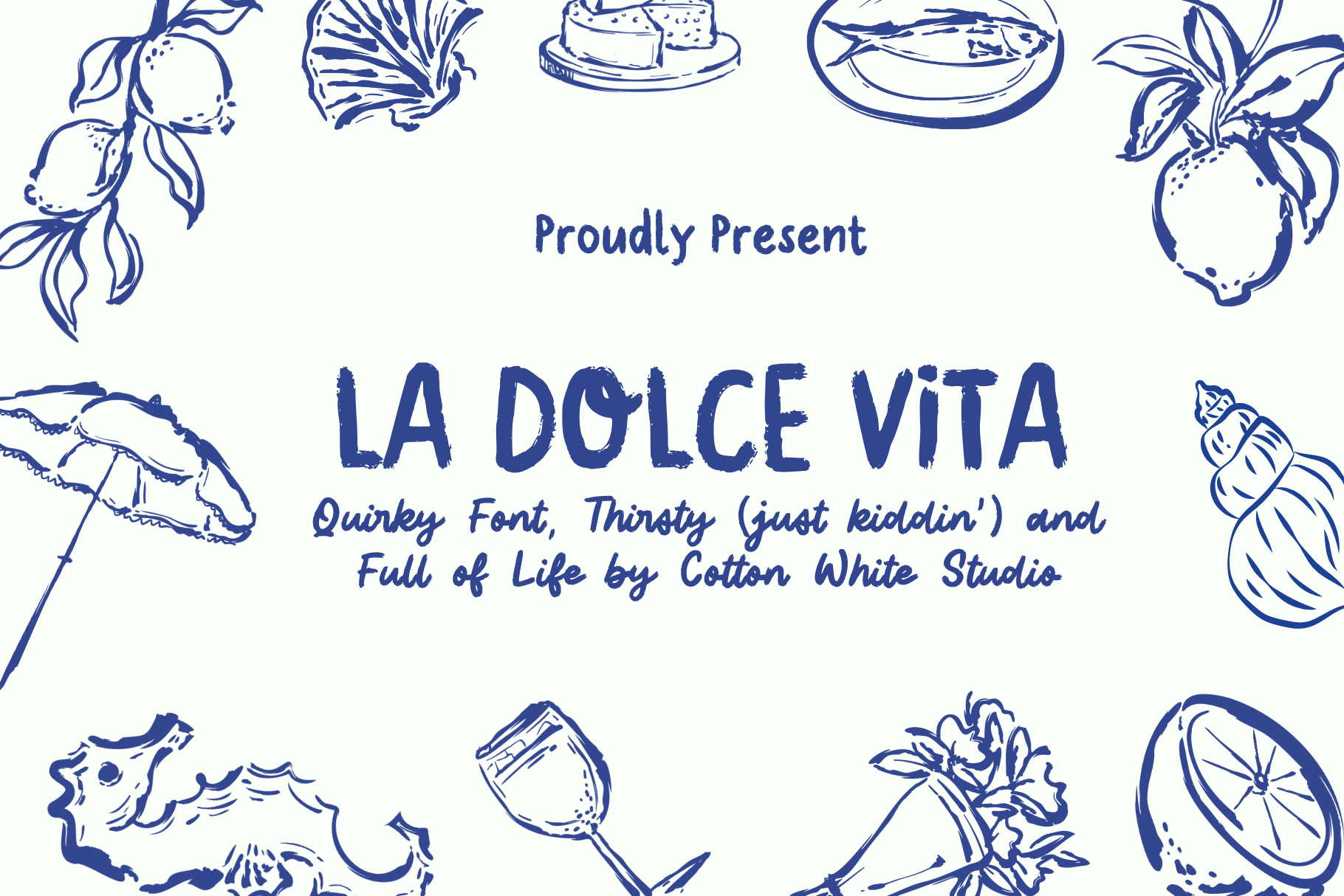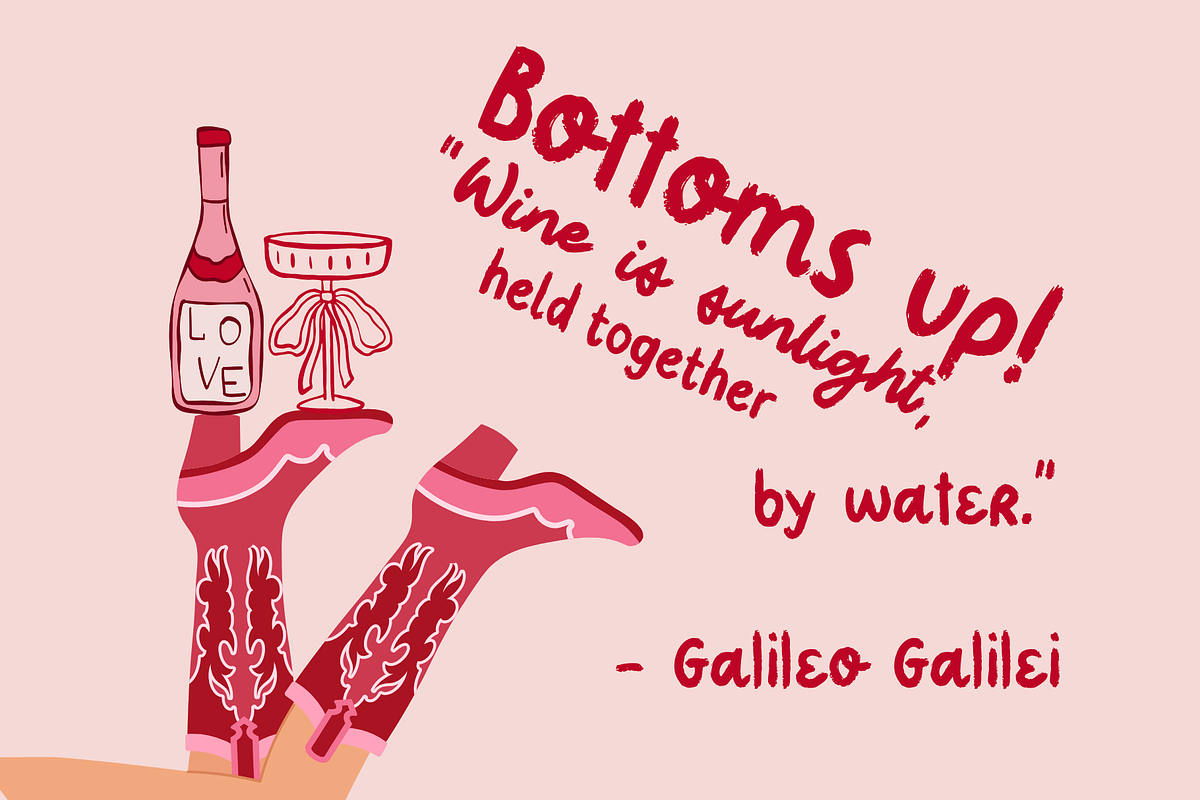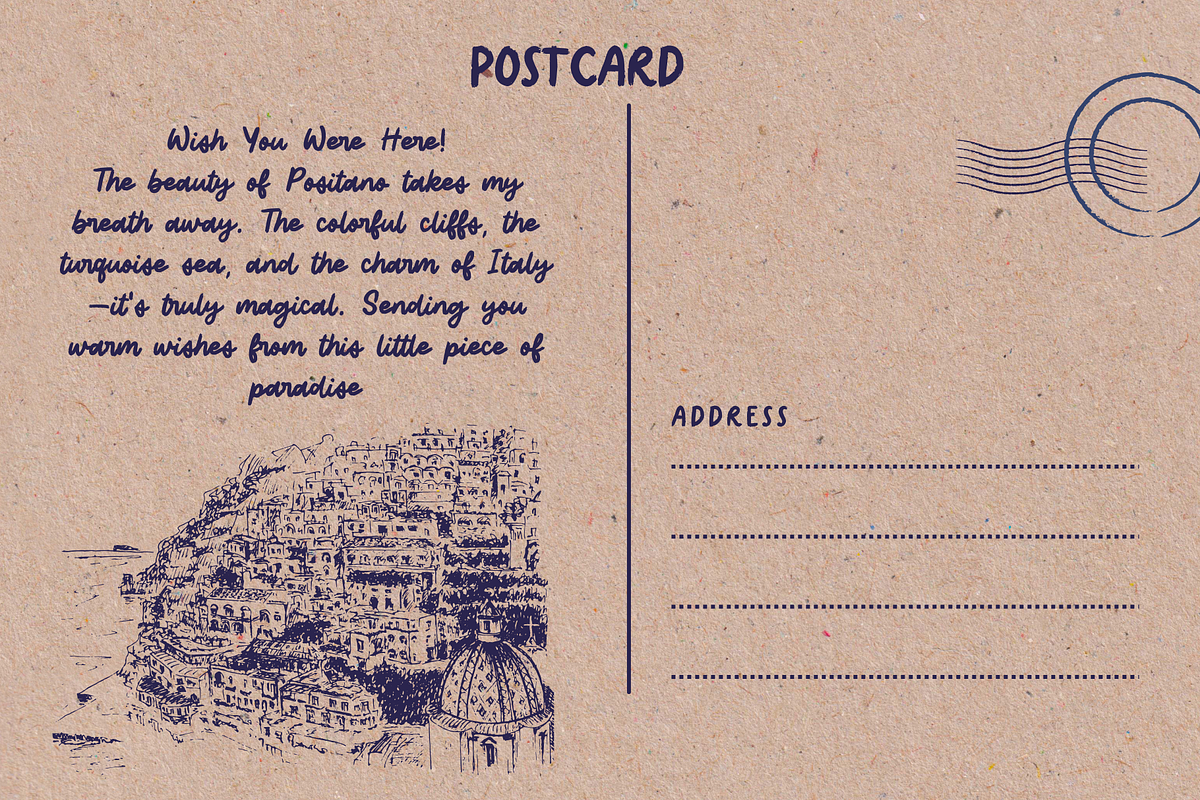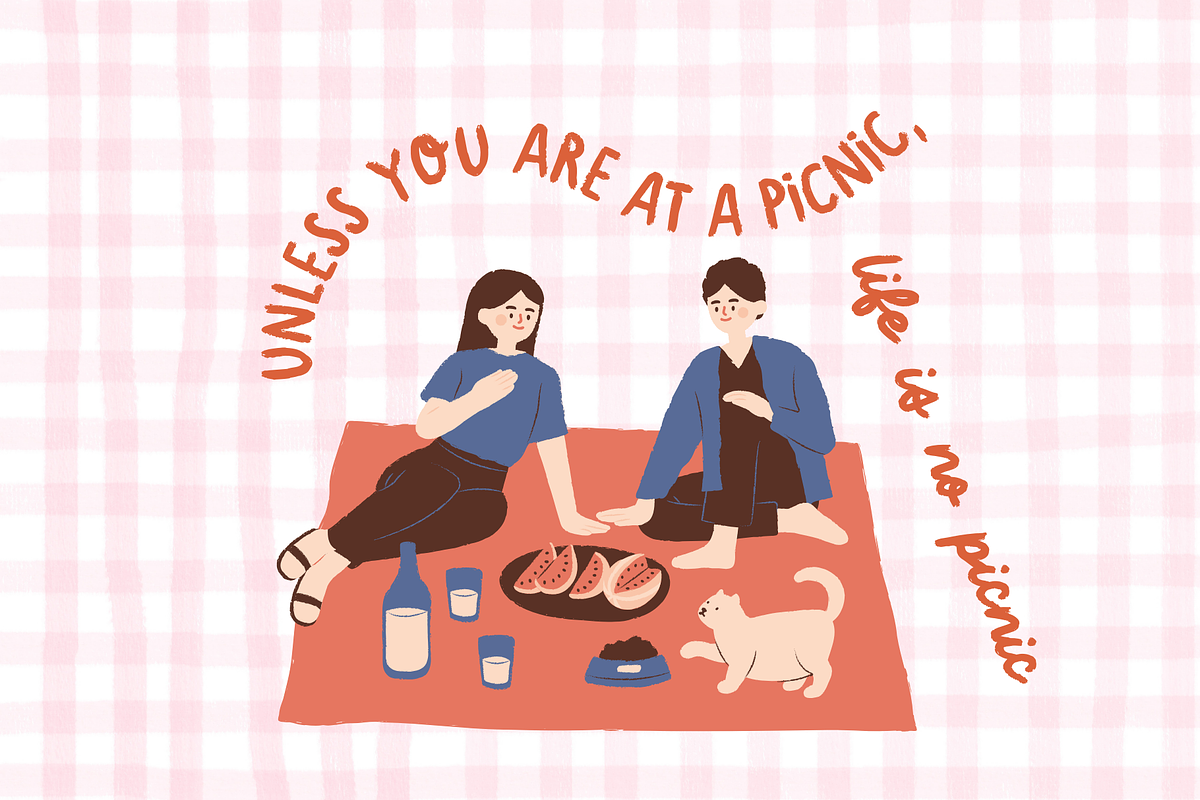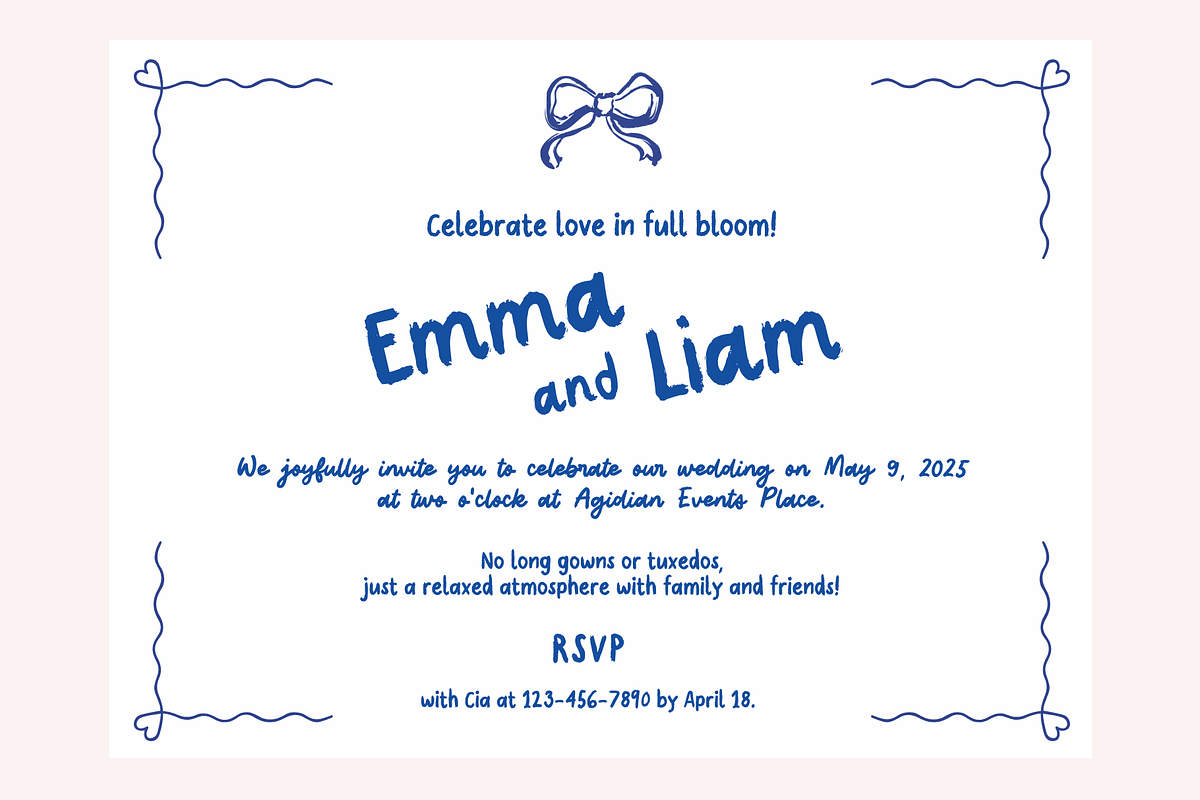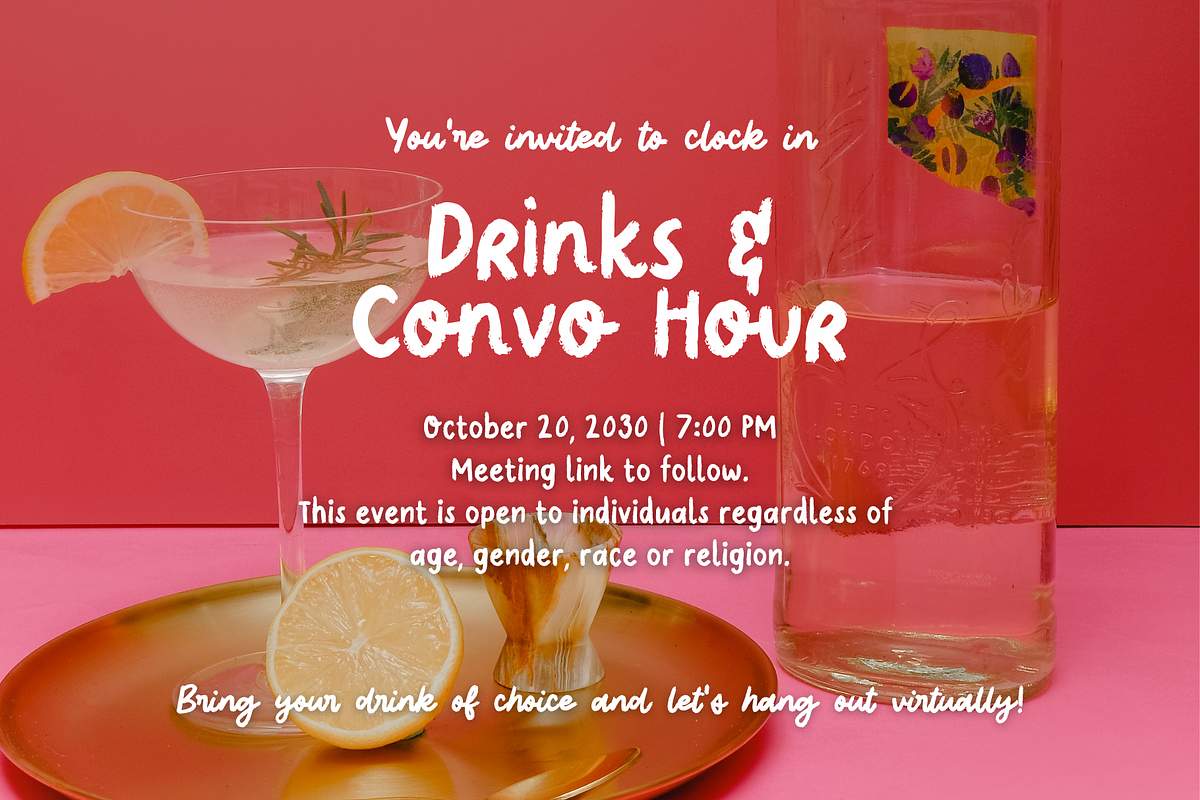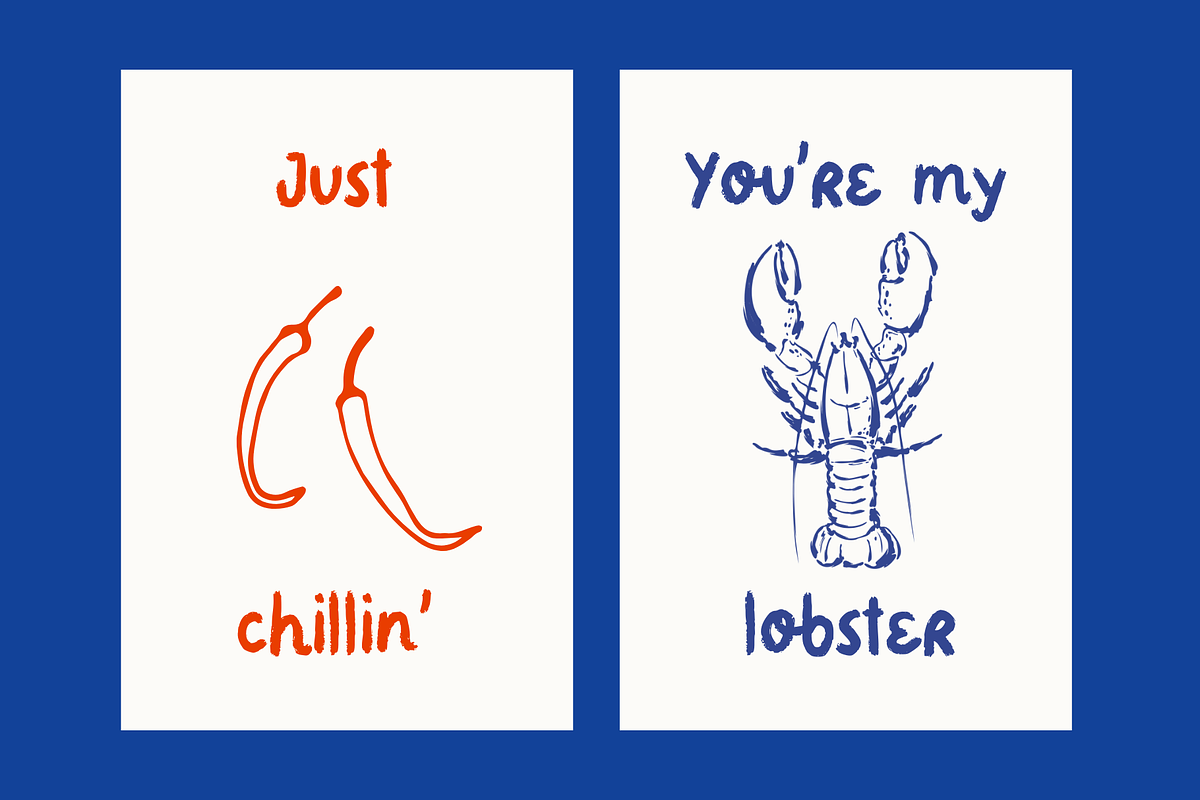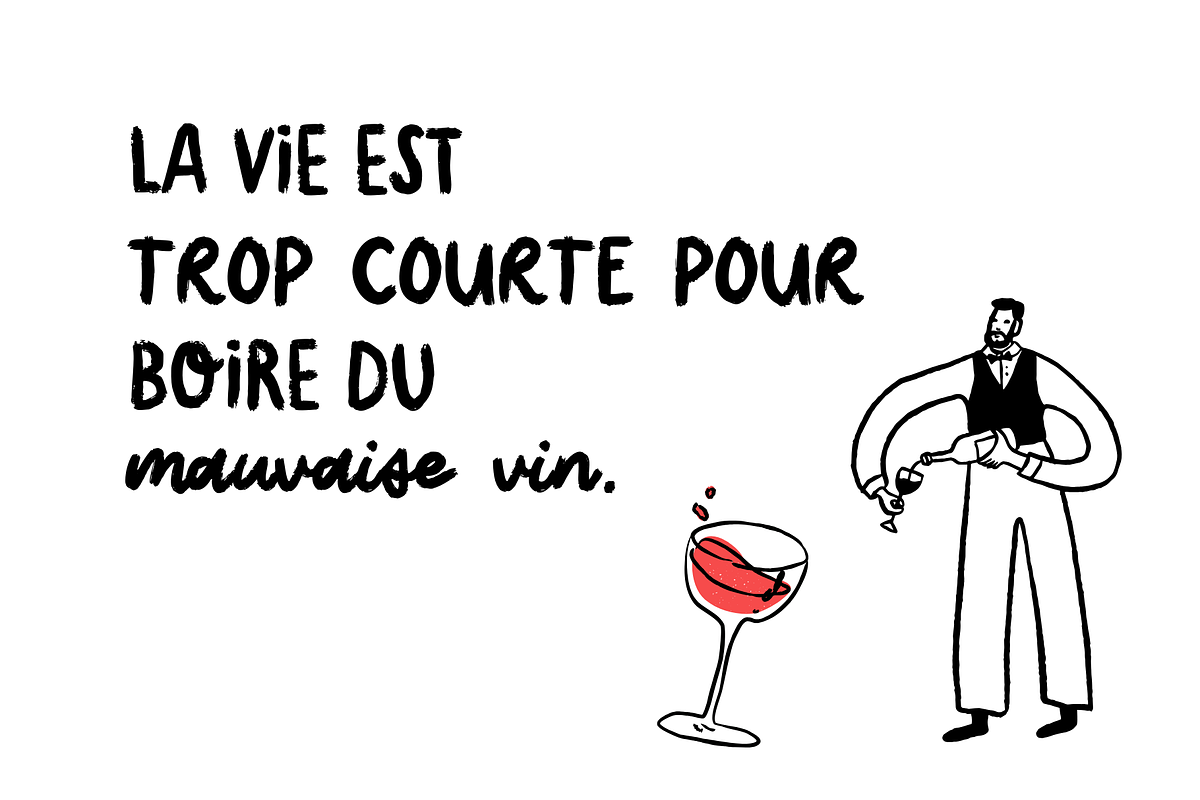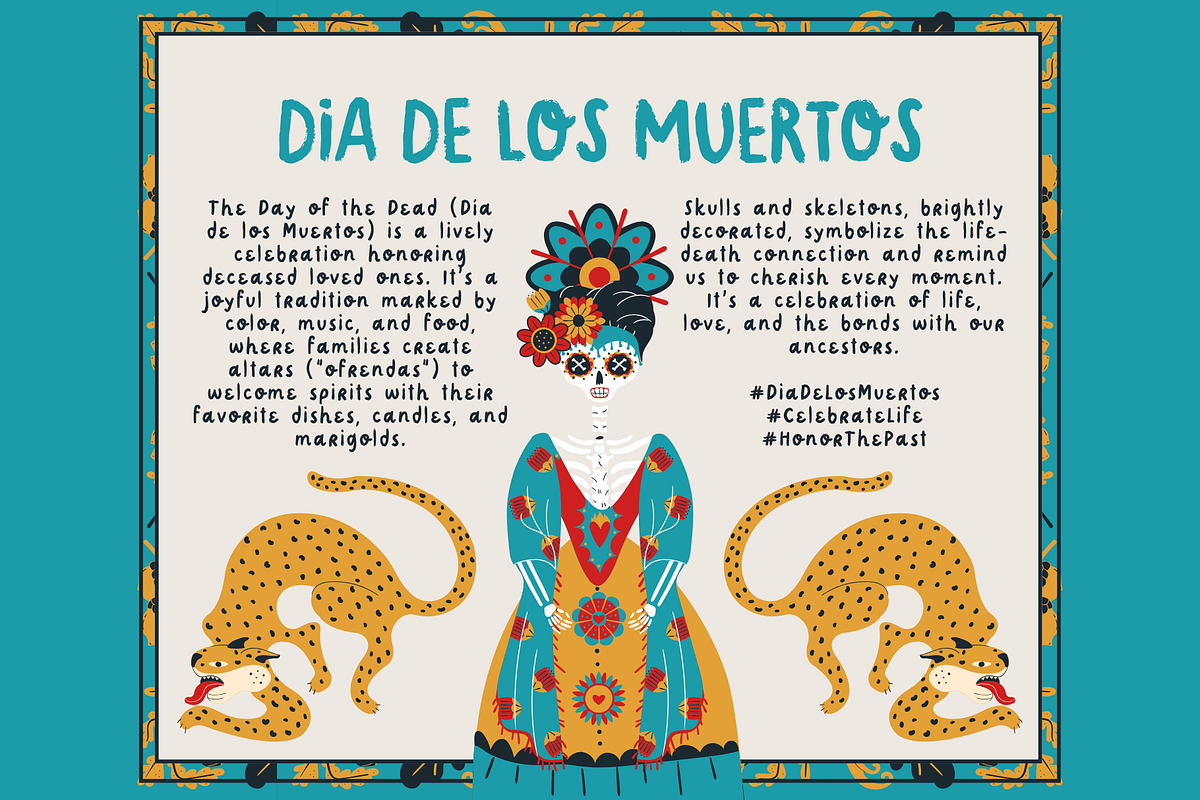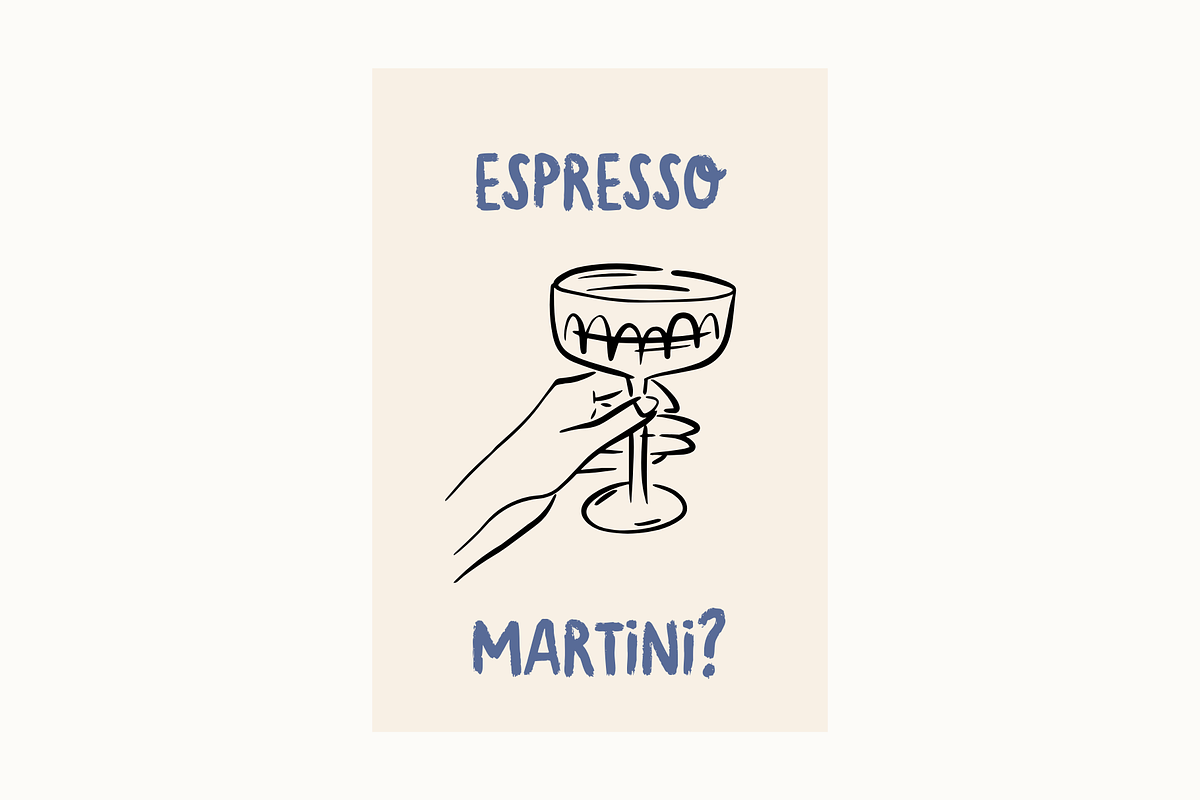
La Dolce Vita Brush Font
Introducing La Dolce Vita—the perfect brush font trio that brings a playful, imperfect charm to your designs! With three unique styles—La Dolce Vita, La Dolce Vita Alternative, and La Dolce Vita Script—you’ll have endless creative possibilities. From carefree strokes to elegant script, this font set adds personality and warmth to every project. Ideal for branding, quotes, or anything that needs a personal, handwritten feel. Bring the sweetness of life to your designs with La Dolce Vita!